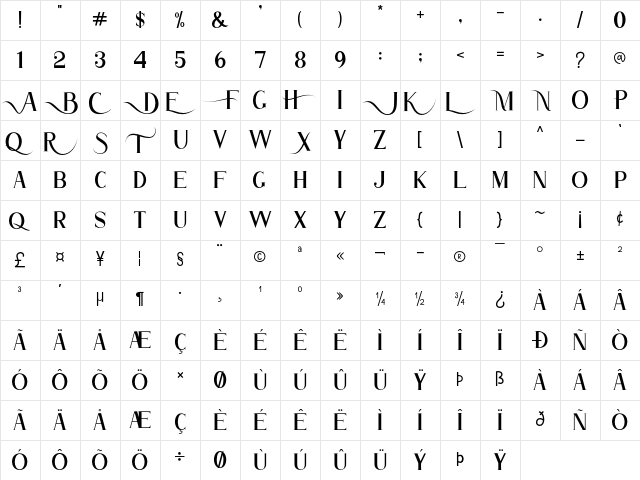
Atlane Regular
| Designer | (MJB Letters). 2019. (Muhammad Mujibulloh) |
Design Context for Atlane Typeface
Atlane is a composed and adaptable typeface that performs quietly and consistently across a wide range of design contexts.